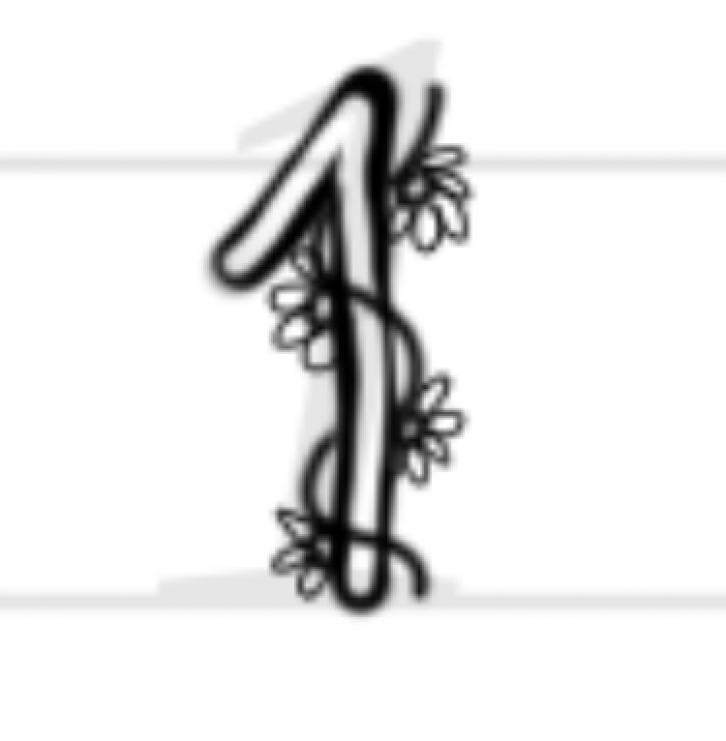
This font is inspired by spring and also my friend's (Fontanista, she has AMAZING fonts) X-Ray font. It is going to be spring break for me, and the first thing about spring that I would think of flowers. This font turned out different from how I designed it, but I hope you like this font anyway!